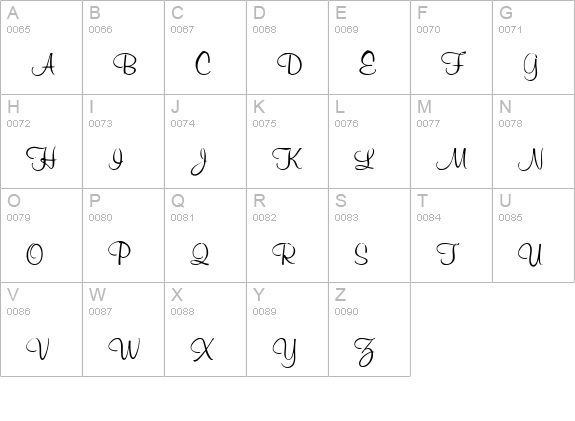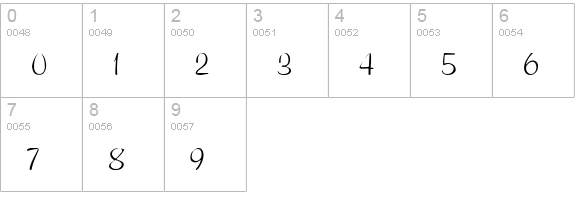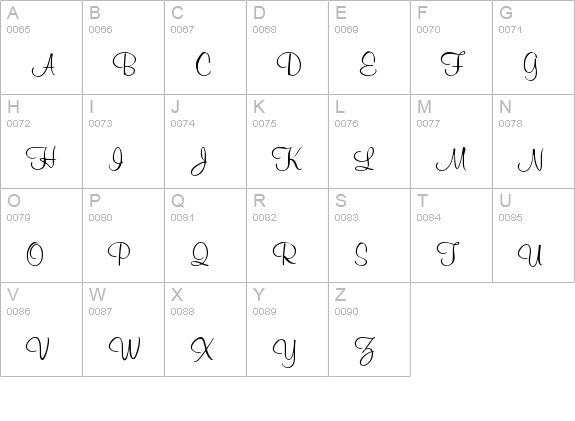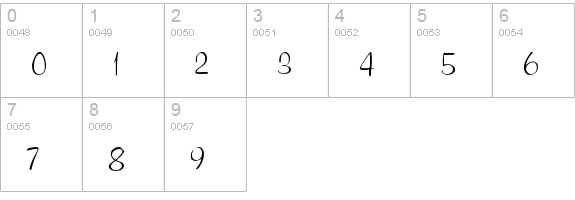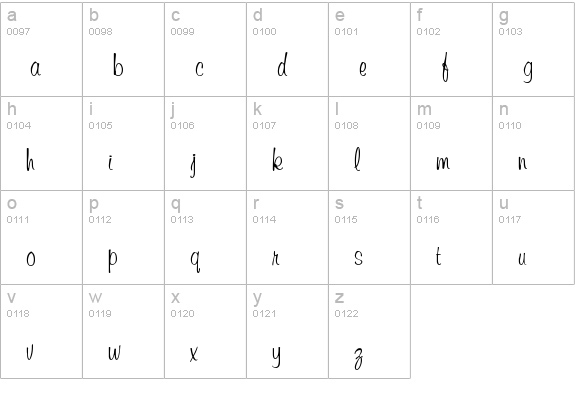
Chroma Script SSi Font Details
Chroma Script SSi font is a stunning and elegant typeface that exudes sophistication and style. With its sleek lines and modern design, this font is perfect for adding a touch of class to any project. Whether you're creating a logo, designing a website, or crafting a print advertisement, Chroma Script SSi font will elevate your work to the next level. What's even better is that this font is completely free to download! You can access it easily at FontsMarket.com, where you'll find a wide selection of high-quality fonts to choose from. So why settle for ordinary when you can elevate your design with the striking beauty of Chroma Script SSi font? Download it today and see the difference it can make in your projects.